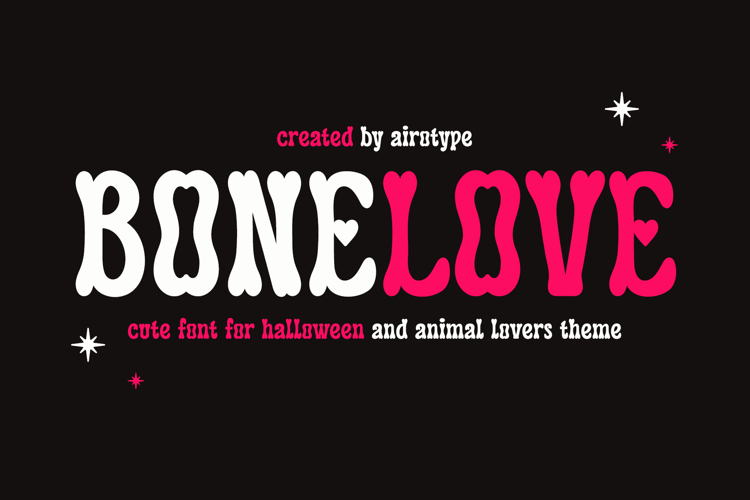
Bone Love is retro and groovy font. This font is cute, lovely, and festive.
The bone accent in this font is suitable for design that needs cute, spooky and retro vibes, such as Halloween, t-shirt, stickers, crafting, sublimation, and many more.
It is also suitable for pet design, such as cat, or dog.